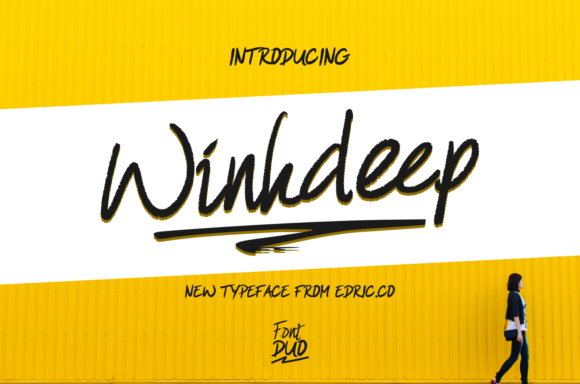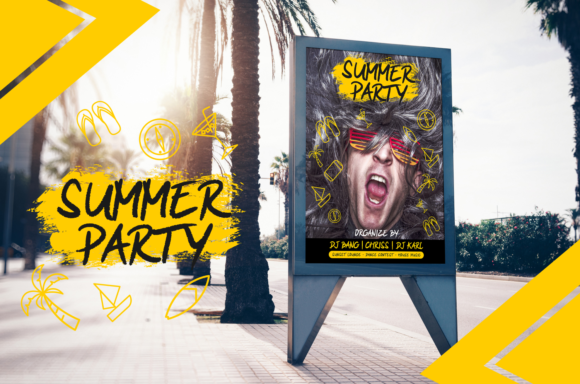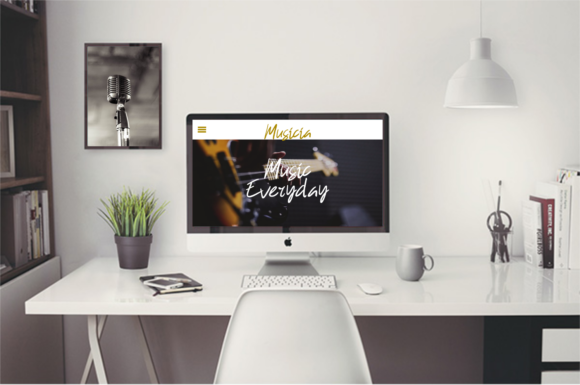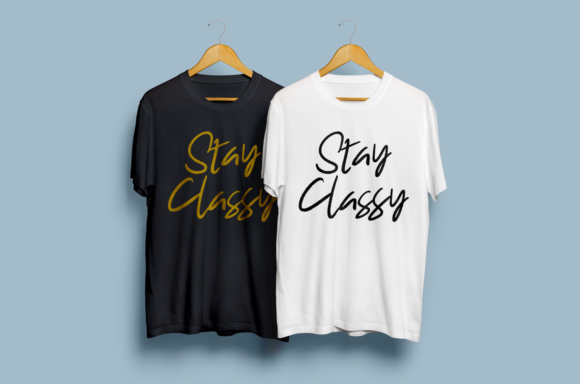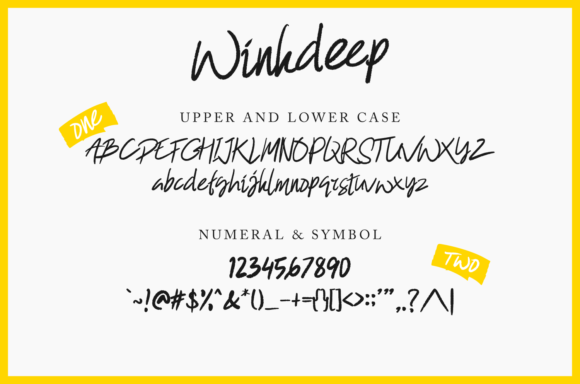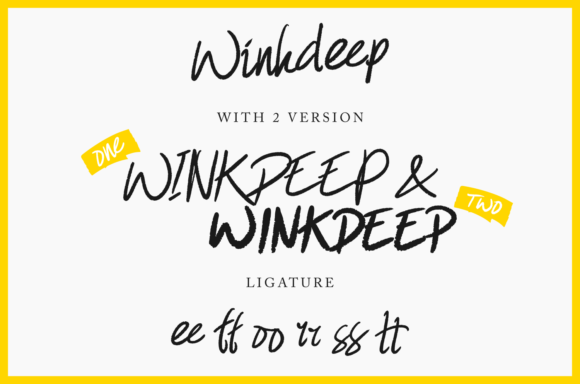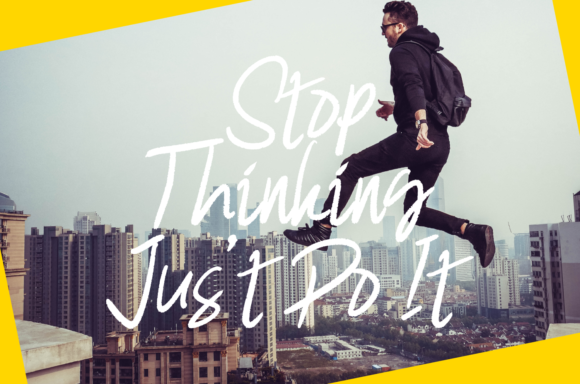
Winkdeep Duo Font
About Winkdeep Duo Font
The Winkdeep is an unique font duo. It includes two amazing versions which can be combined perfectly, giving you the opportunity to create multiple unique designs in an instant.
It’s striking style is perfect for logos, posters, headlines, and every other design which needs to stand out.